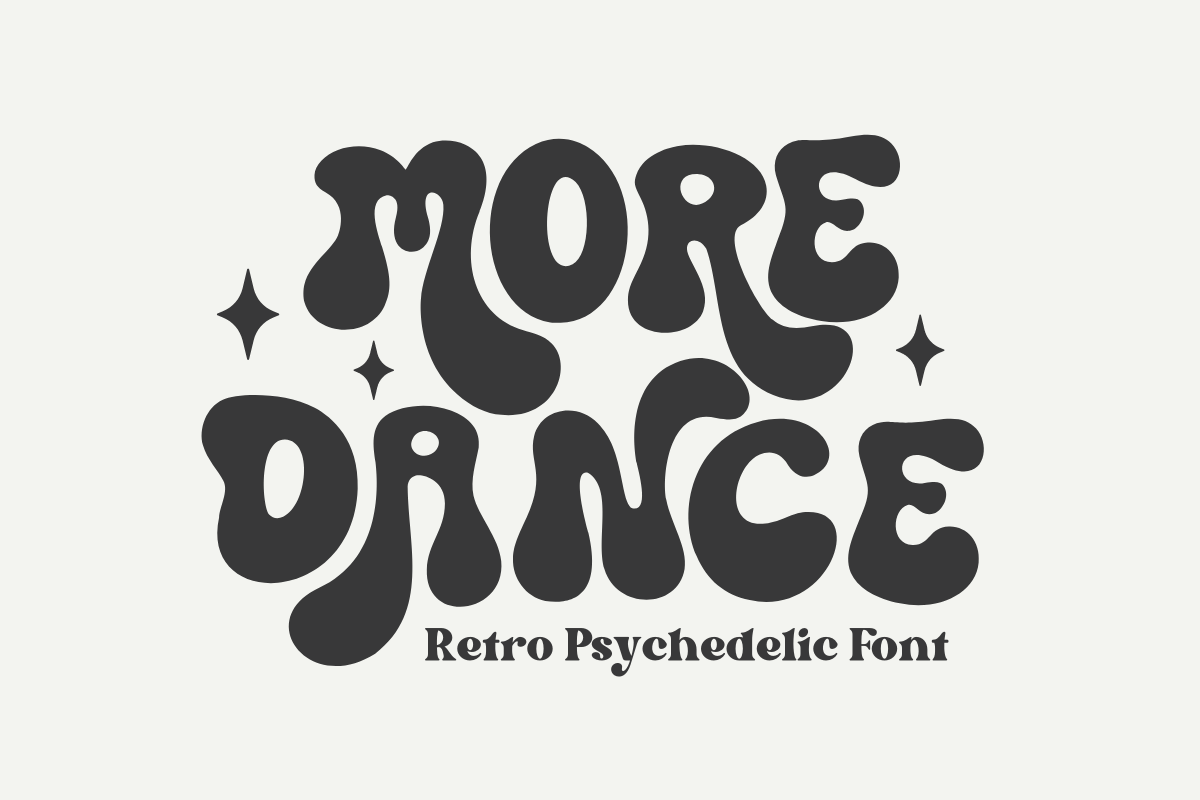
More Dance - Retro Display Font
More Dance is an electrifying, energetic retro psychedelic font that perfectly captures the bold, fluid style of the late 60s and 70s. This chunky display font features exaggerated, organic curves and a groovy, flowing appearance, making it essential for vintage branding, fun feminine logos, retro posters, t-shirt designs, and vibrant social media graphics. Its unmistakable style ensures it is a powerful display typeface for headlines, album covers, and packaging, appealing to a trendy audience with a love for nostalgic funk. Get ready to move and shake your designs with this truly mesmerizing groovy font!